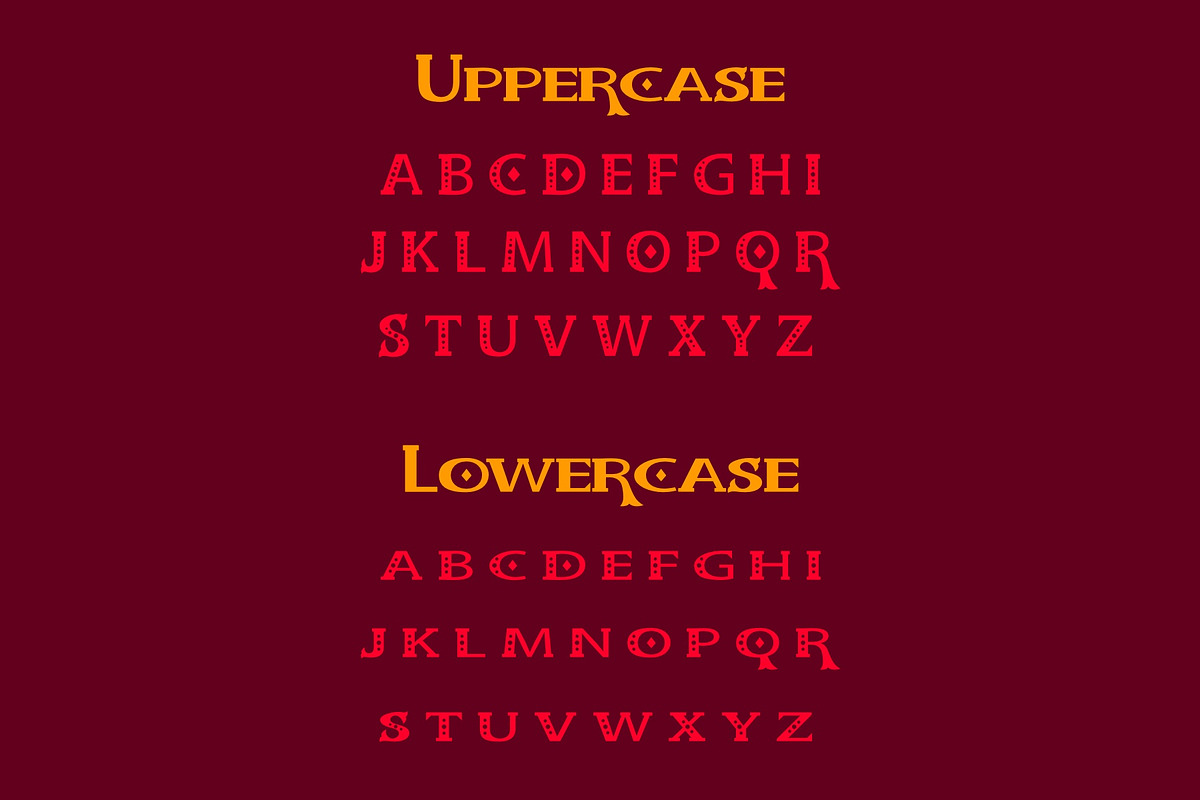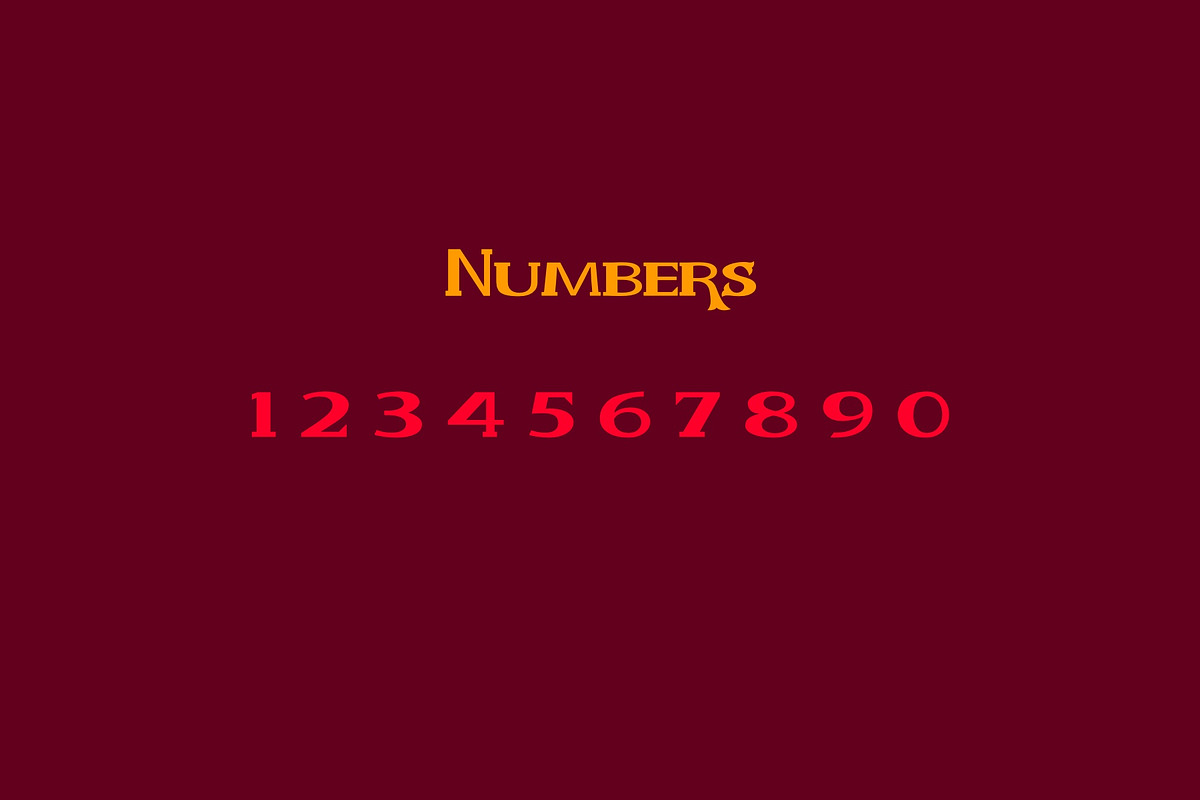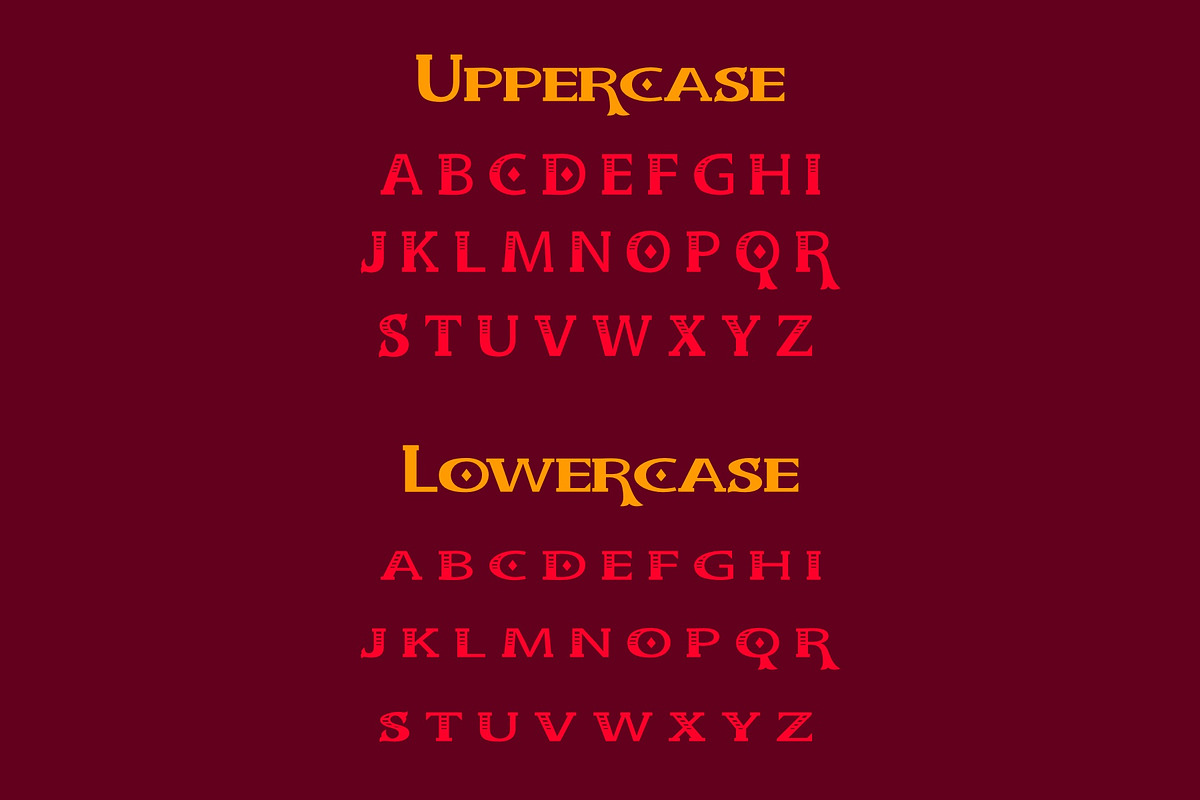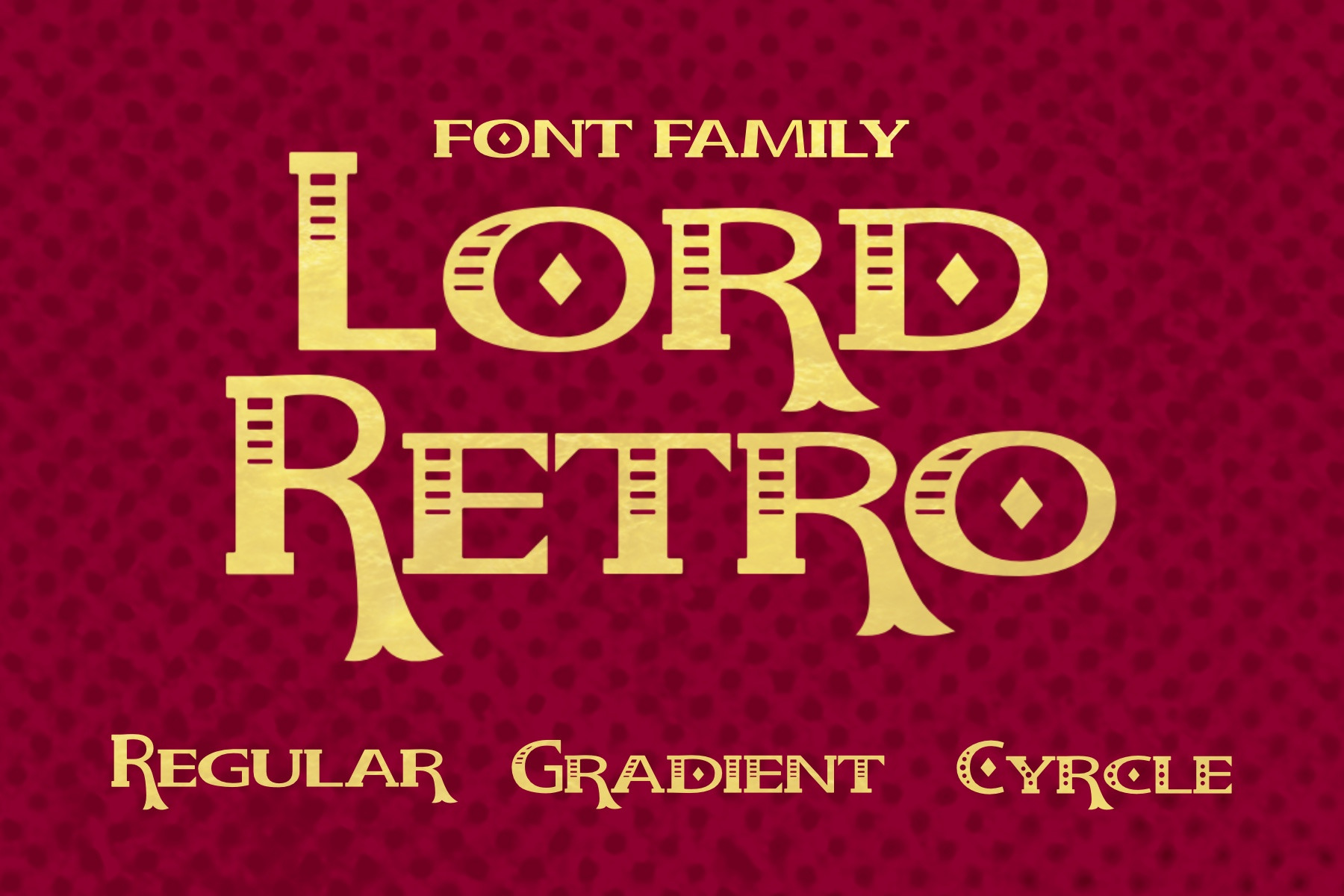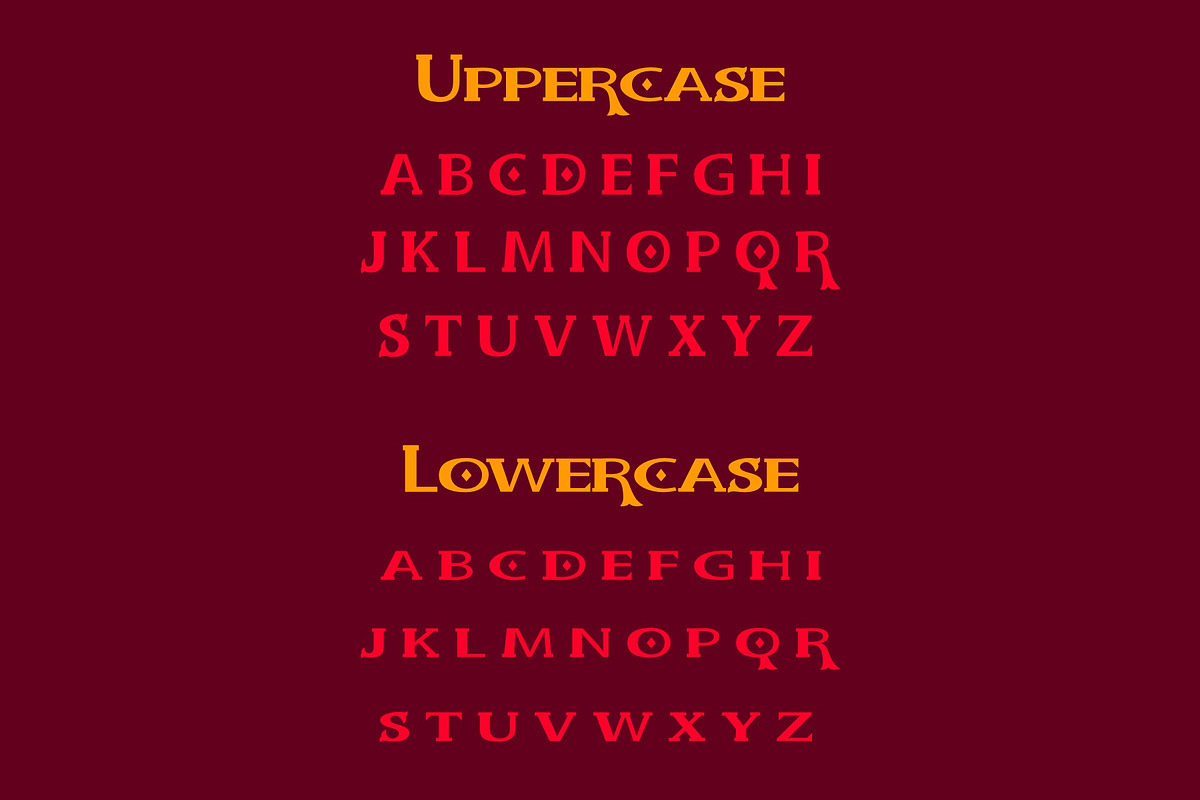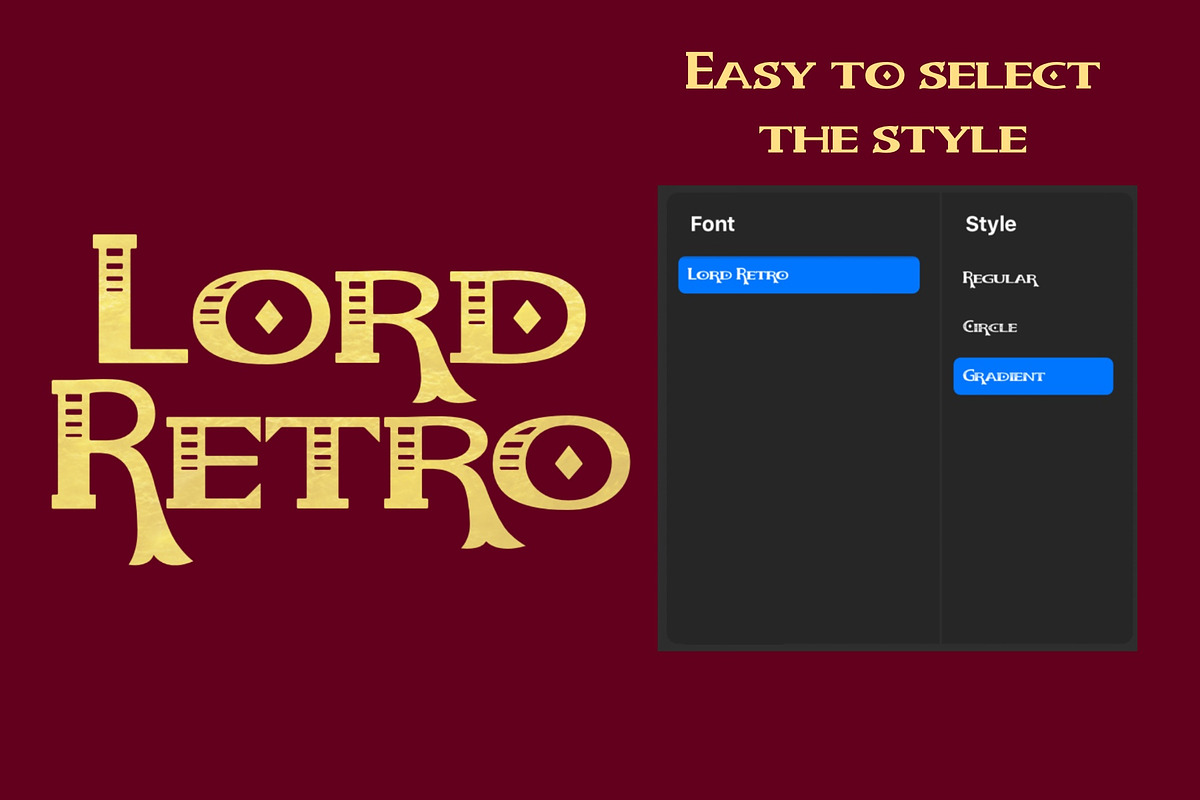
Lord Retro Font Family
About the Product Lord Retro is a font family inspired by retro vintage sign and lettering. The font comes with unique uppercase letters ,numbers and punctuation set to give your designs retro and unique look. This product contains 3 fonts with different style . By combining this 3 fonts you can create T-shirt designs , headlines, and typography design.
KEY FEATURES
- Retro Font family ( contain 3 fonts )
- Character set A-Z with unique uppercase letters
- Numbers & Punctuations